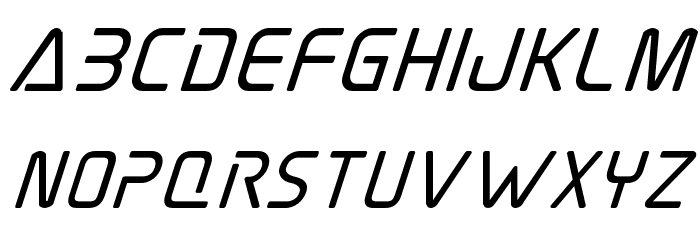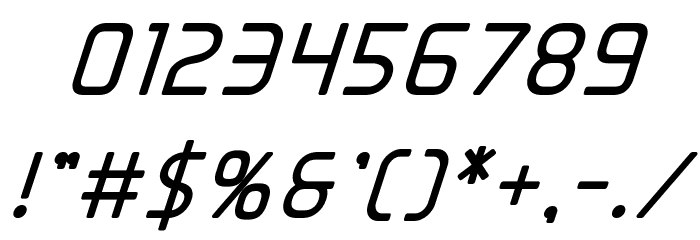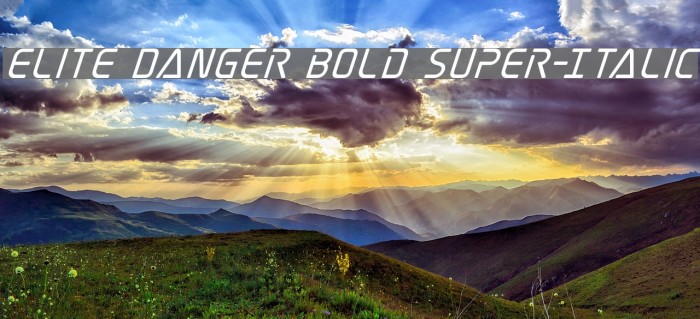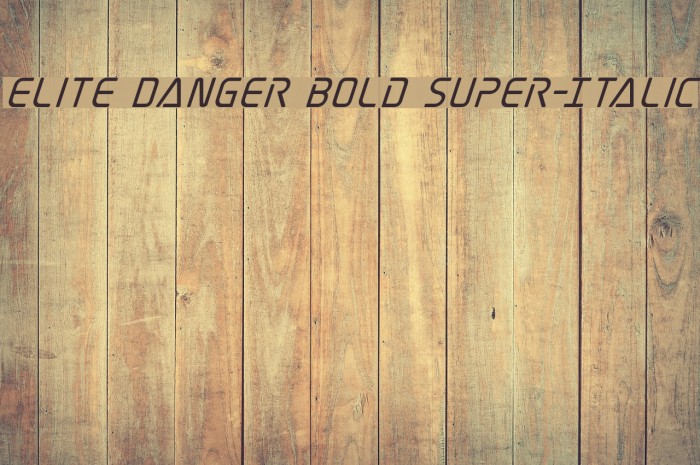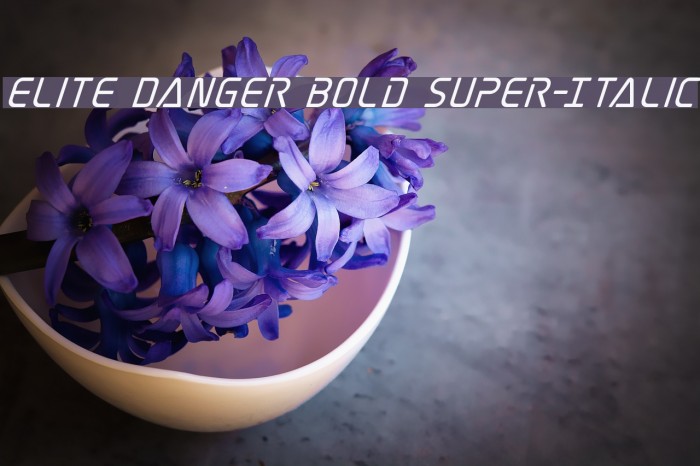
Elite Danger Bold Super-Italic Font
This font features a futuristic and dynamic design with a strong emphasis on angular and slanted lines. The characters are bold and italicized, giving them a sense of movement and speed. The uppercase letters are distinct with sharp edges, while the lowercase letters maintain a consistent style that complements the uppercase. The numbers are clear and easy to read, with a uniform width that matches the letters. Special characters are designed with the same angular style, ensuring a cohesive look across all glyphs. This font is ideal for projects that require a modern and edgy aesthetic.
A bold, italicized font with a futuristic and dynamic design.
- Proposed Projects: Ideal for sci-fi themed designs, video game titles, technology branding, and sports team logos.
- Use Case: Headlines, Logos, Branding